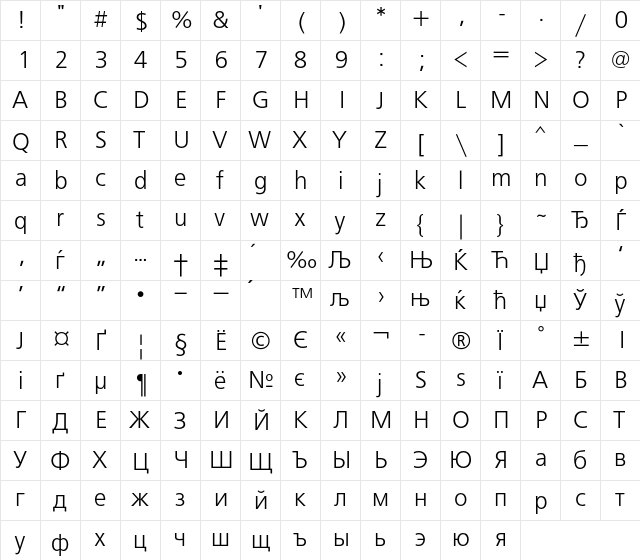
FreeSetC Regular
Design Context for FreeSetC Typeface
FreeSetC takes a measured approach to typography — its balanced proportions and neutral character make it a reliable workhorse for both digital and print work.
Pro Tip: Use FreeSetC in both headline and body roles to test its range before committing to a single application.